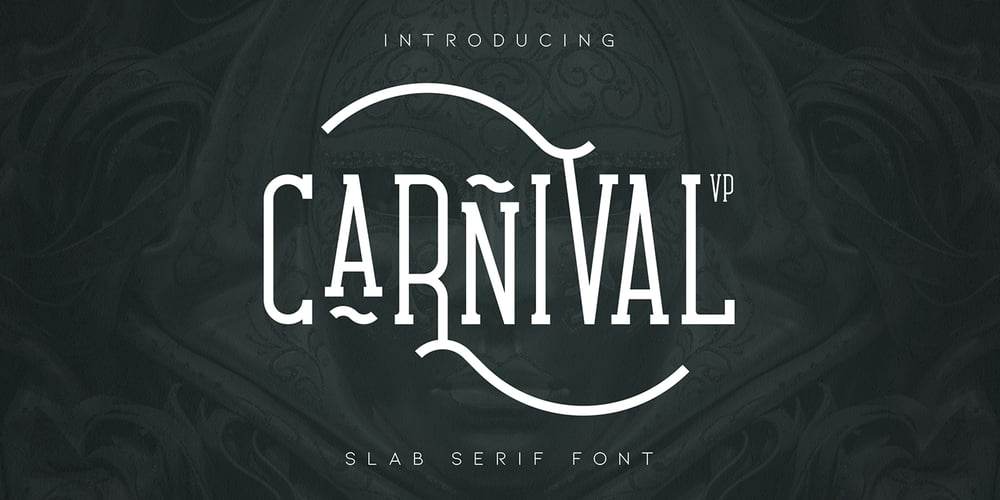
Carnival VP Font Family was designed by Vladimir Fedotov, Plamen Petrov and published by VP Creative Shop. Carnival VP contains 1 styles and family package options. Carnival VP is a long, clean font with Latin and Cyrillic support, tons of alternate glyphs, and multilingual support. It’s a very versatile font that works great in large and small sizes. Carnival VP is perfect for branding projects, home-ware designs, product packaging, magazine headers – or simply as a stylish text overlay to any background image. Uppercase, numeral, punctuation and symbols Cyrillic support – Russian, Ukrainian, Bulgarian and more Alternate glyphs Multilingual support To access alternate glyphs in Adobe InDesign or Illustrator, choose Window Type & Tables Glyphs In Photoshop, choose Window Glyphs. In the panel that opens, click the Show menu and choose Alternates for Selection. Double-click an alternate’s thumbnail to swap them out. Feel free to contact me if you have any questions! Thank you! Enjoy!